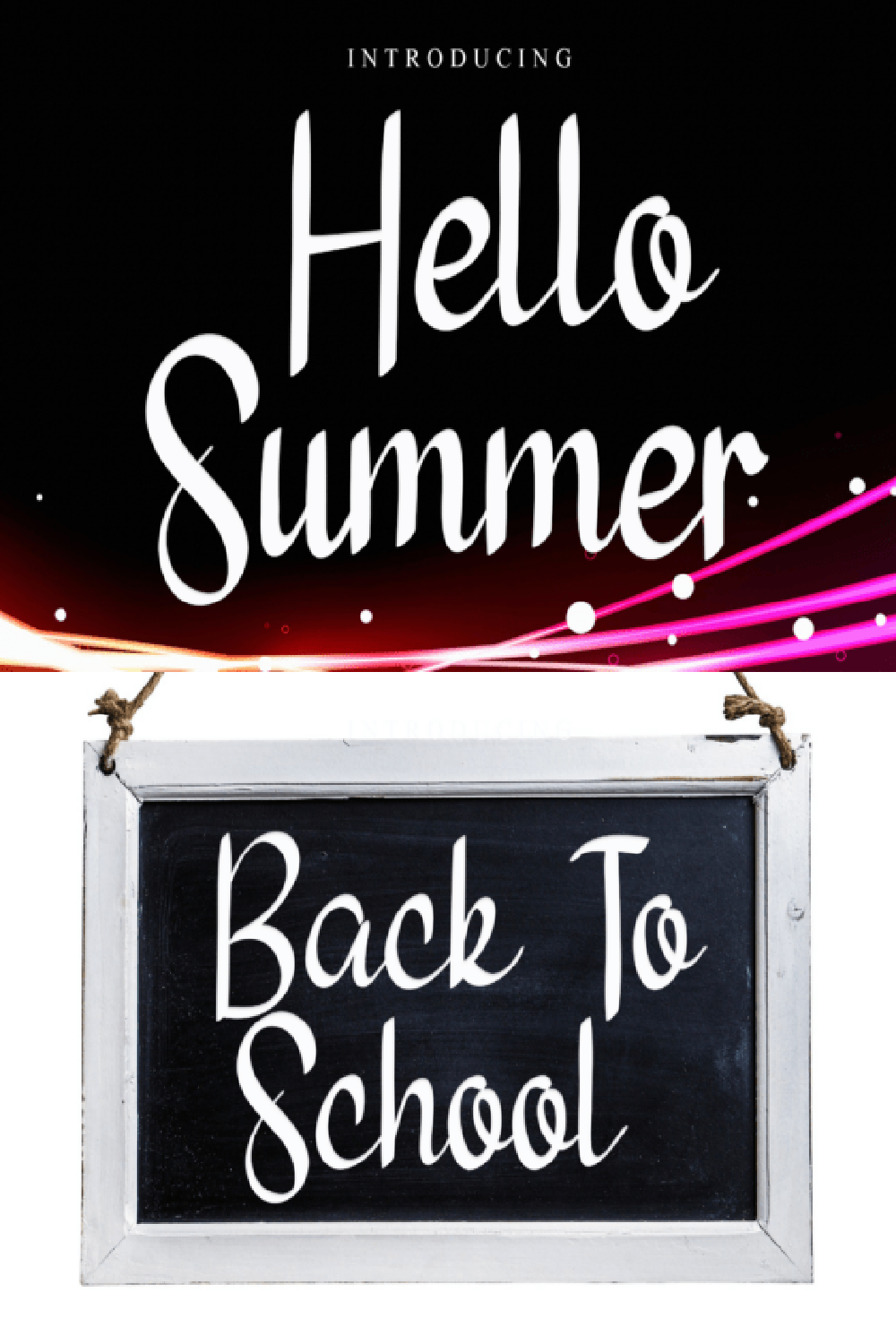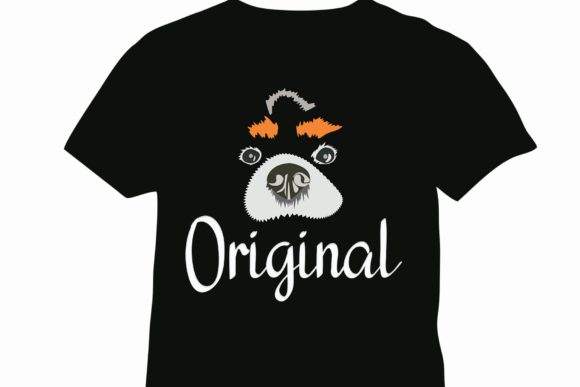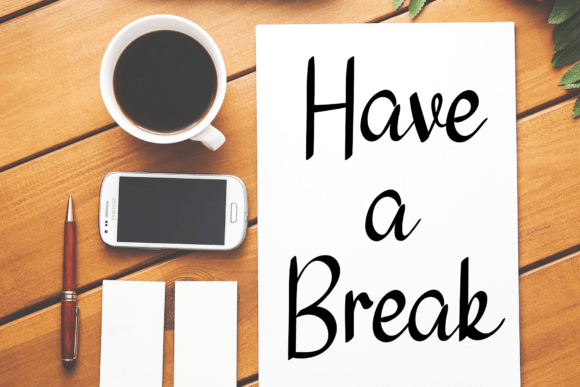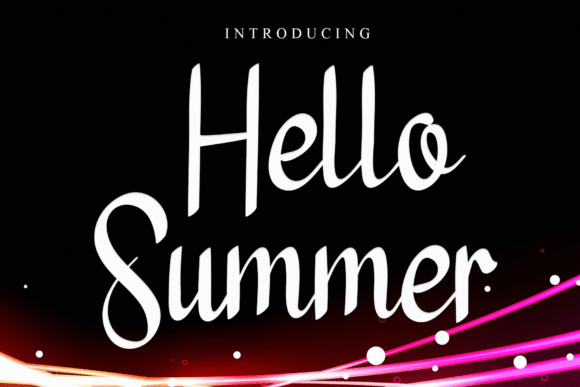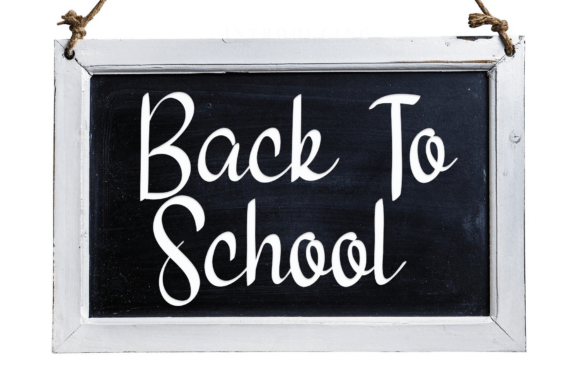
Hello Summer Font
About the Hello Summer Font
We are excited to introduce Hello Summer Font, a must-have typeface for any serious designer. Hello Summer is a unique and elegant font specially designed just for you. This font is made with a professional hand touch and is perfect for your projects. This font is very suitable for use in your work projects, all greeting cards from wedding invitation cards, birthdays, all types of parties. This font is also very suitable for use in your creative ideas for school assignments or other important events. Apply this font with your creative ideas to make it look better. This font is very carefully crafted and it is accessible with all glyphs without any additional application.